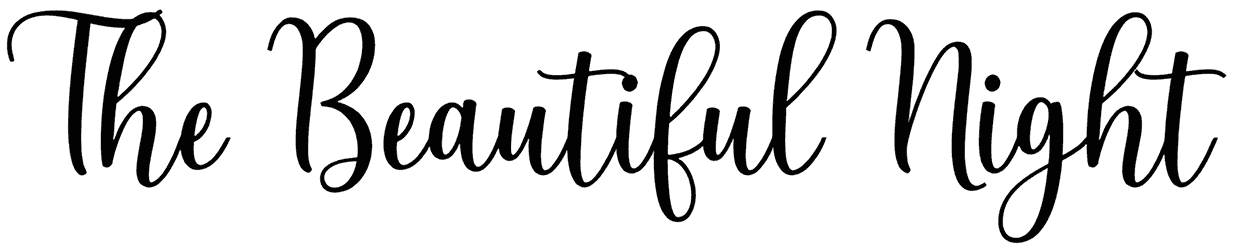
The Beautiful Night Font
Making a graceful sight can grab your viewers’ attention, and The Beautiful Night is able to do it. As you can see, this invitation font has a smooth and twisted face that conveys a sense of freshness and up-to-date. Set this A-Z font on any context like covers, posters, or handwritten quotes, and you will see The Beautiful Night give your design a spectacular look.
Attract Studio